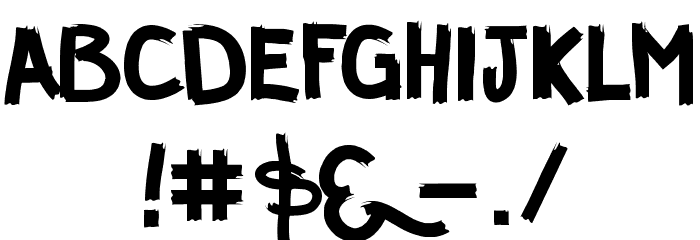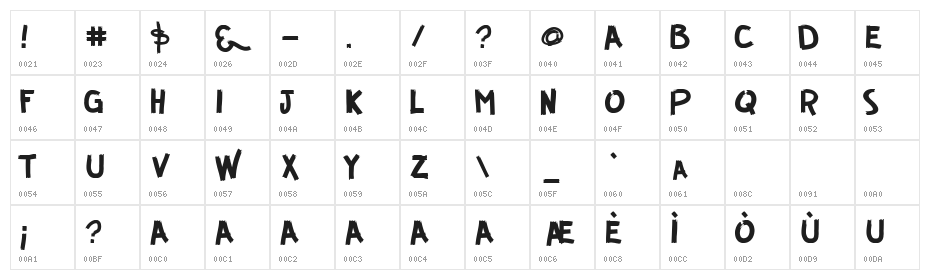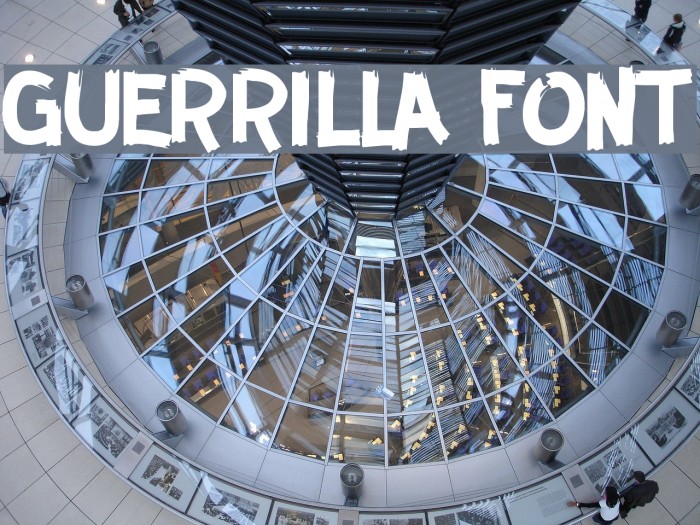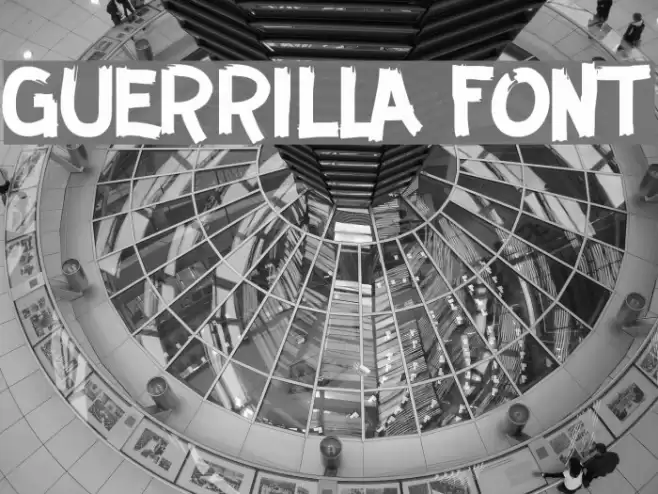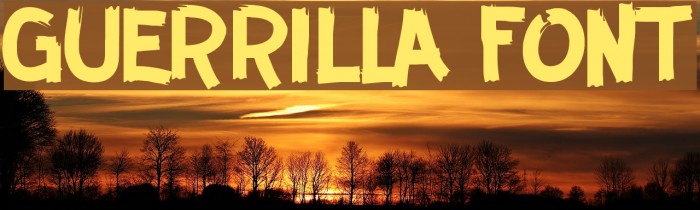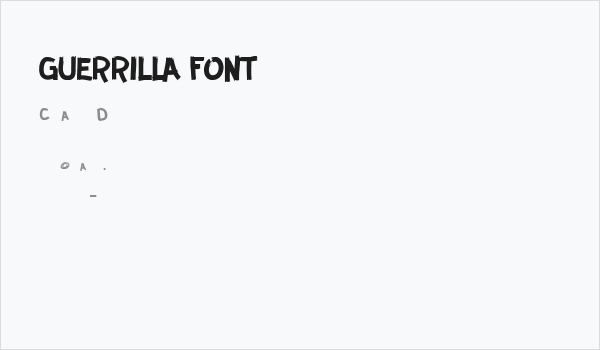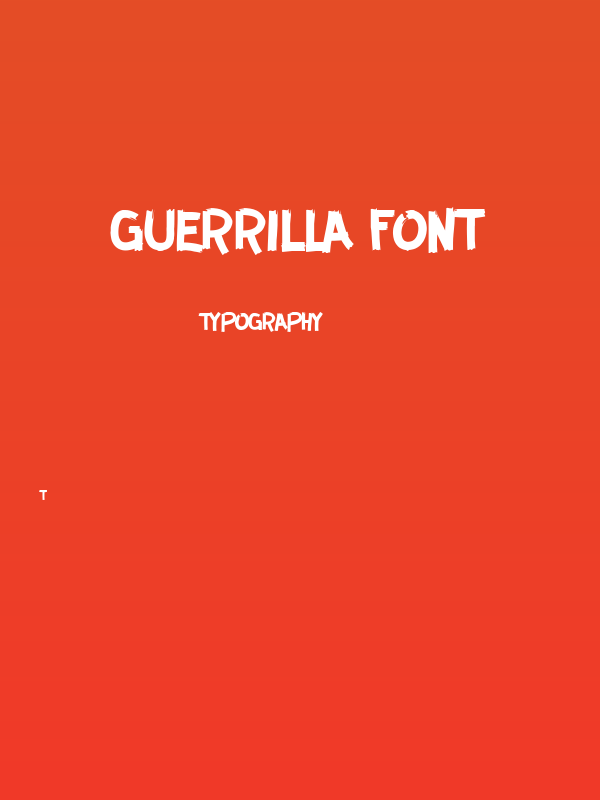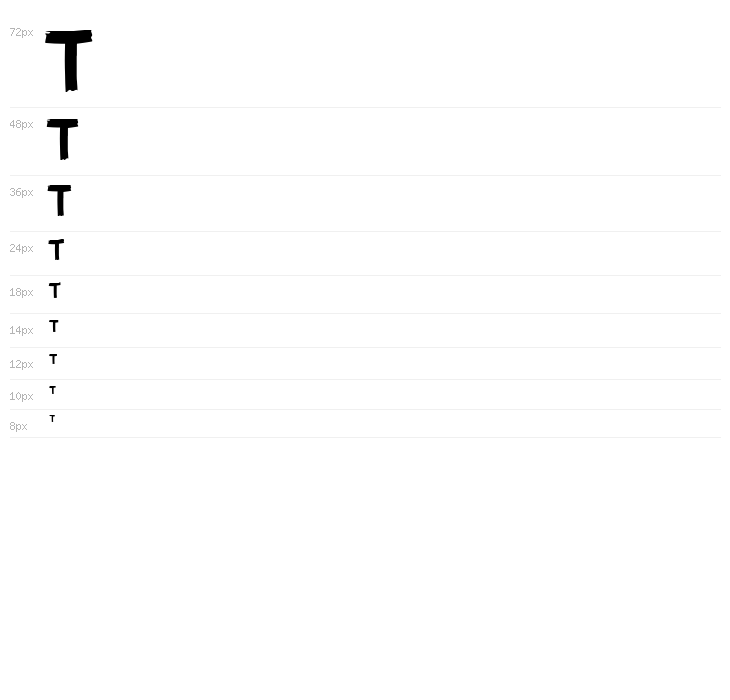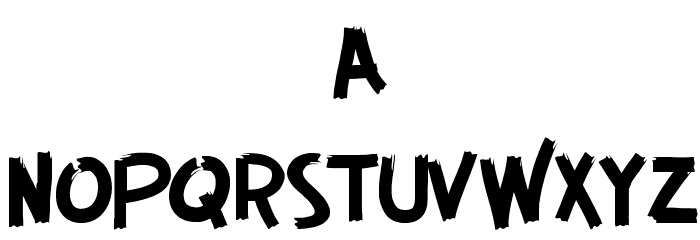
GUERRILLA FONT Font
GUERRILLA FONT Description
This font features a bold and dynamic style with a hand-painted appearance, characterized by its thick strokes and slightly irregular edges that give it a raw, energetic feel. The uppercase letters are prominent and assertive, making a strong visual impact. The font's design is reminiscent of street art or graffiti, with a playful yet rebellious vibe. The characters are tightly spaced, enhancing the compact and powerful look. This font is ideal for projects that require a bold statement or an urban, edgy aesthetic.
| Overall Style | Urban, Edgy, Artistic |
| Proposed Projects | Ideal for posters, album covers, streetwear branding, and urban-themed designs. |